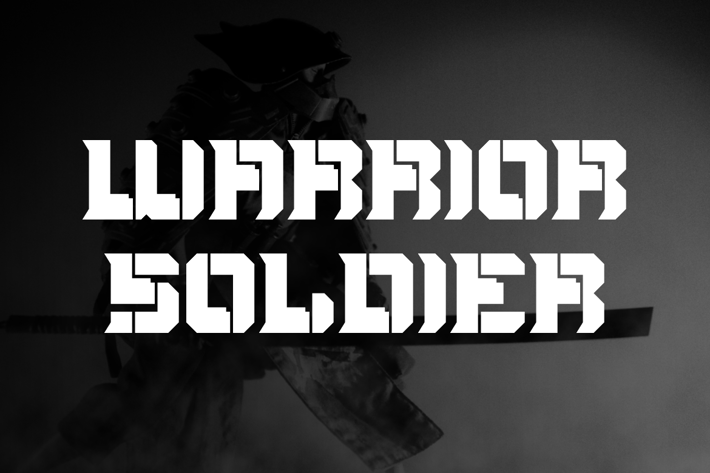
Warrior Soldier - Bold & Gym Font
Warrior Soldier Font is unique . Ready to use for your design like labeling, movie sceen, poster, movie title, gigs, album covers, logos, and much more.